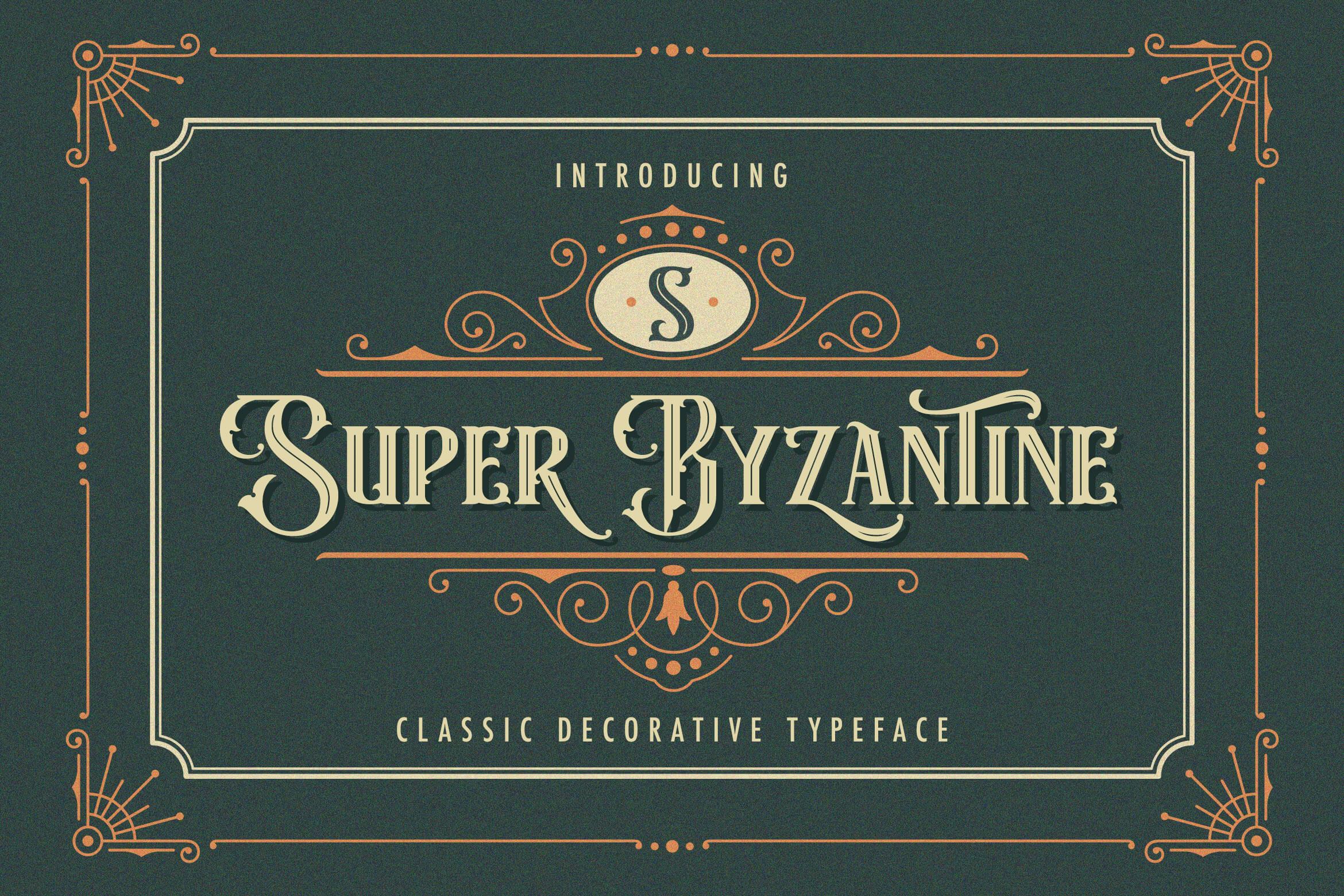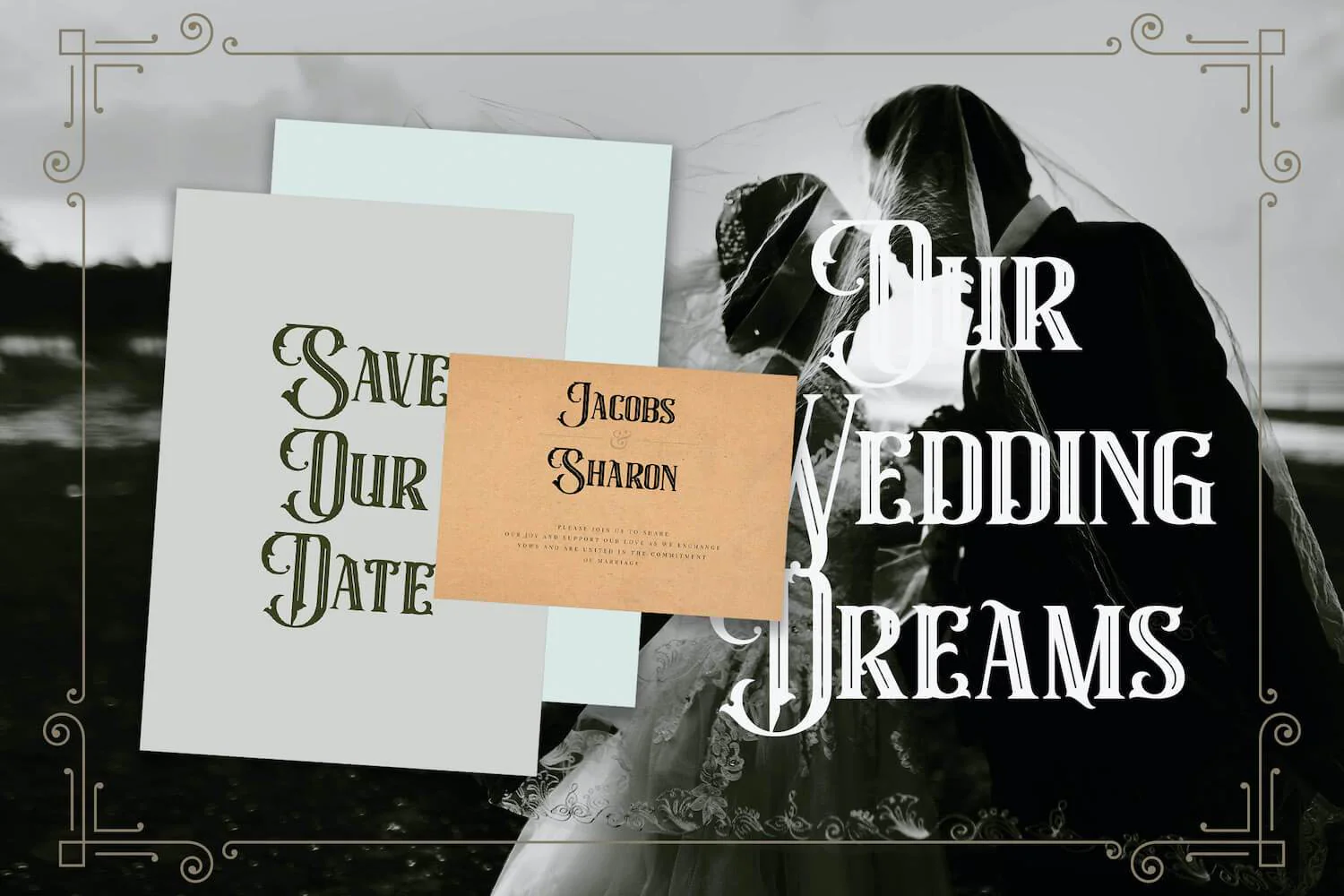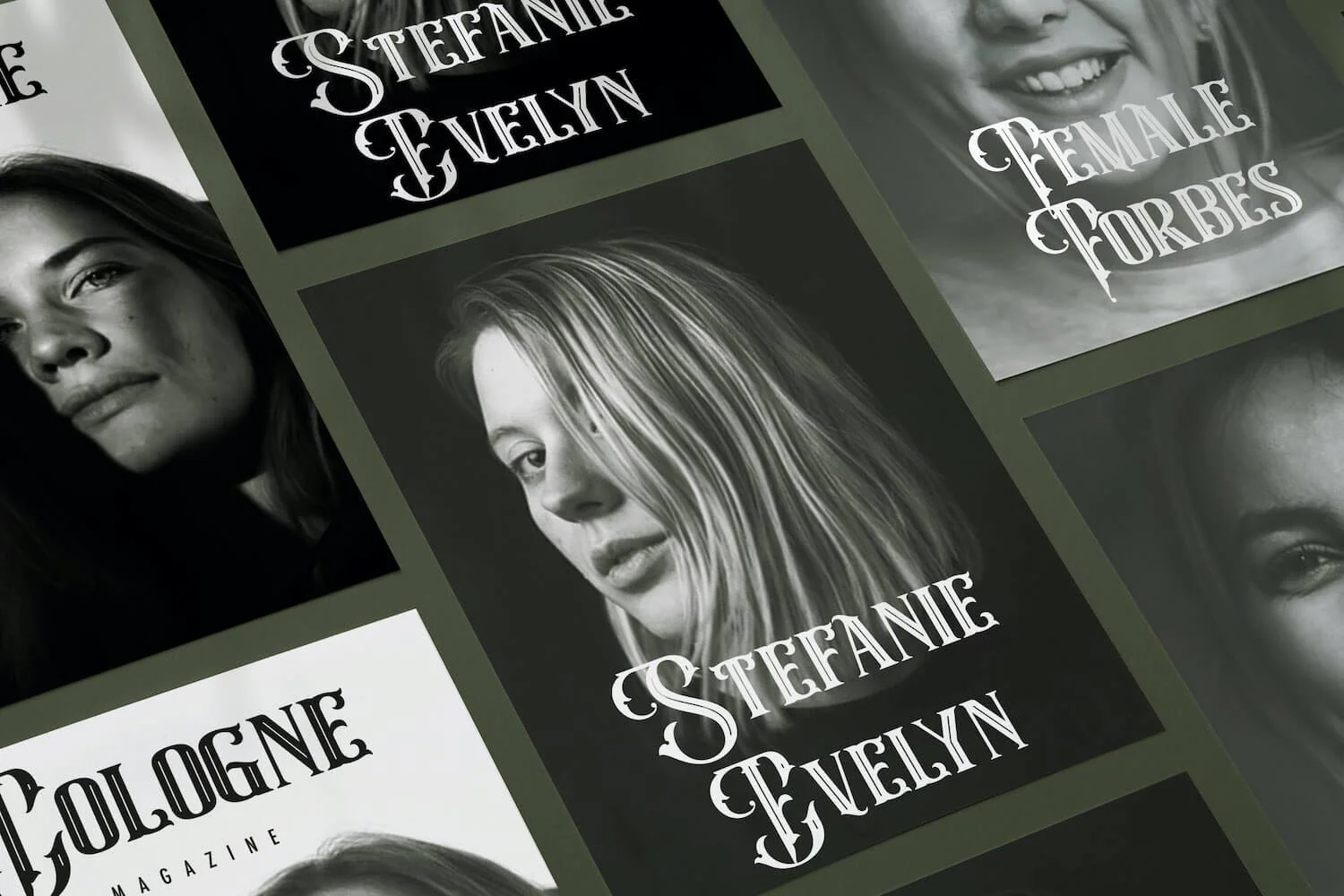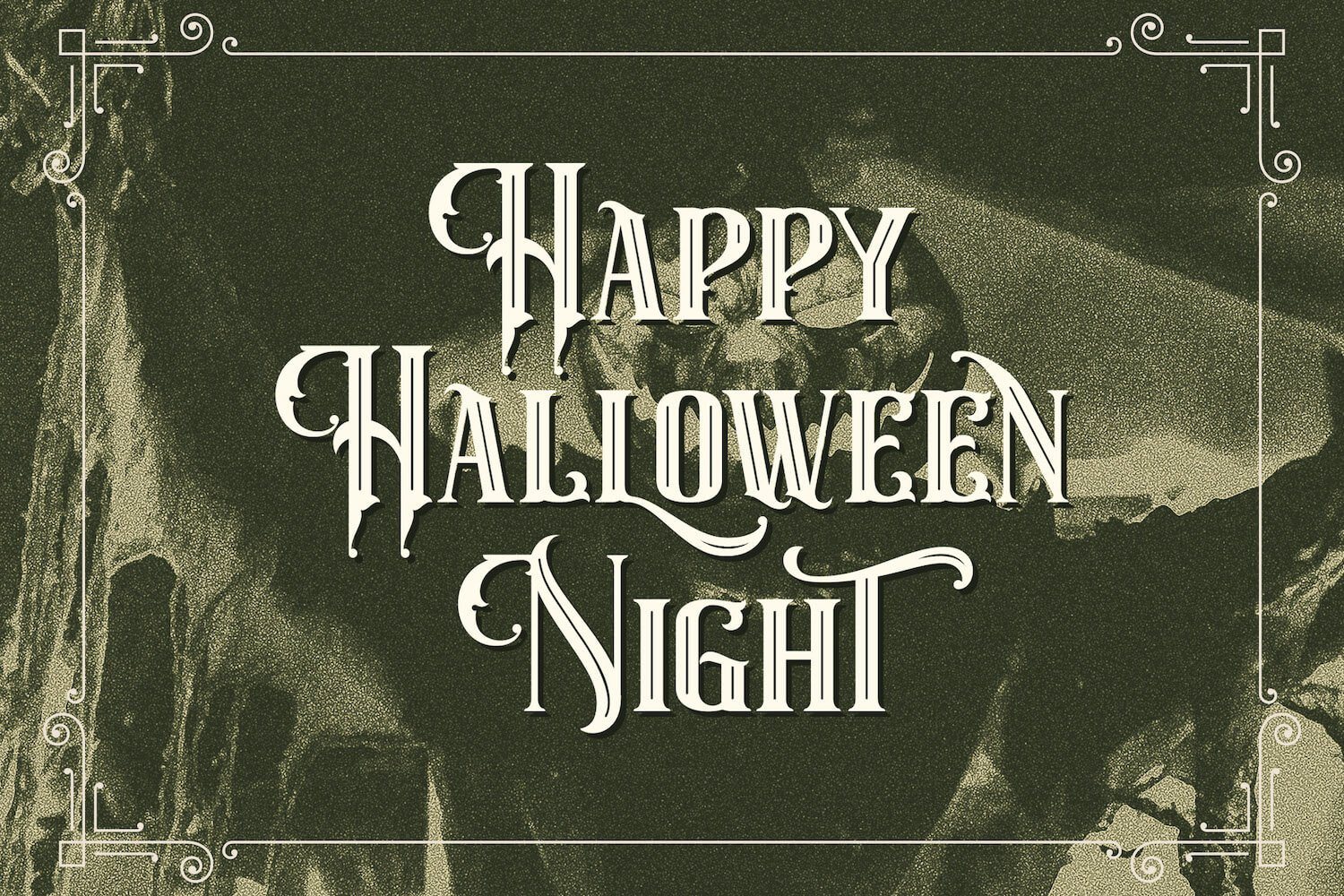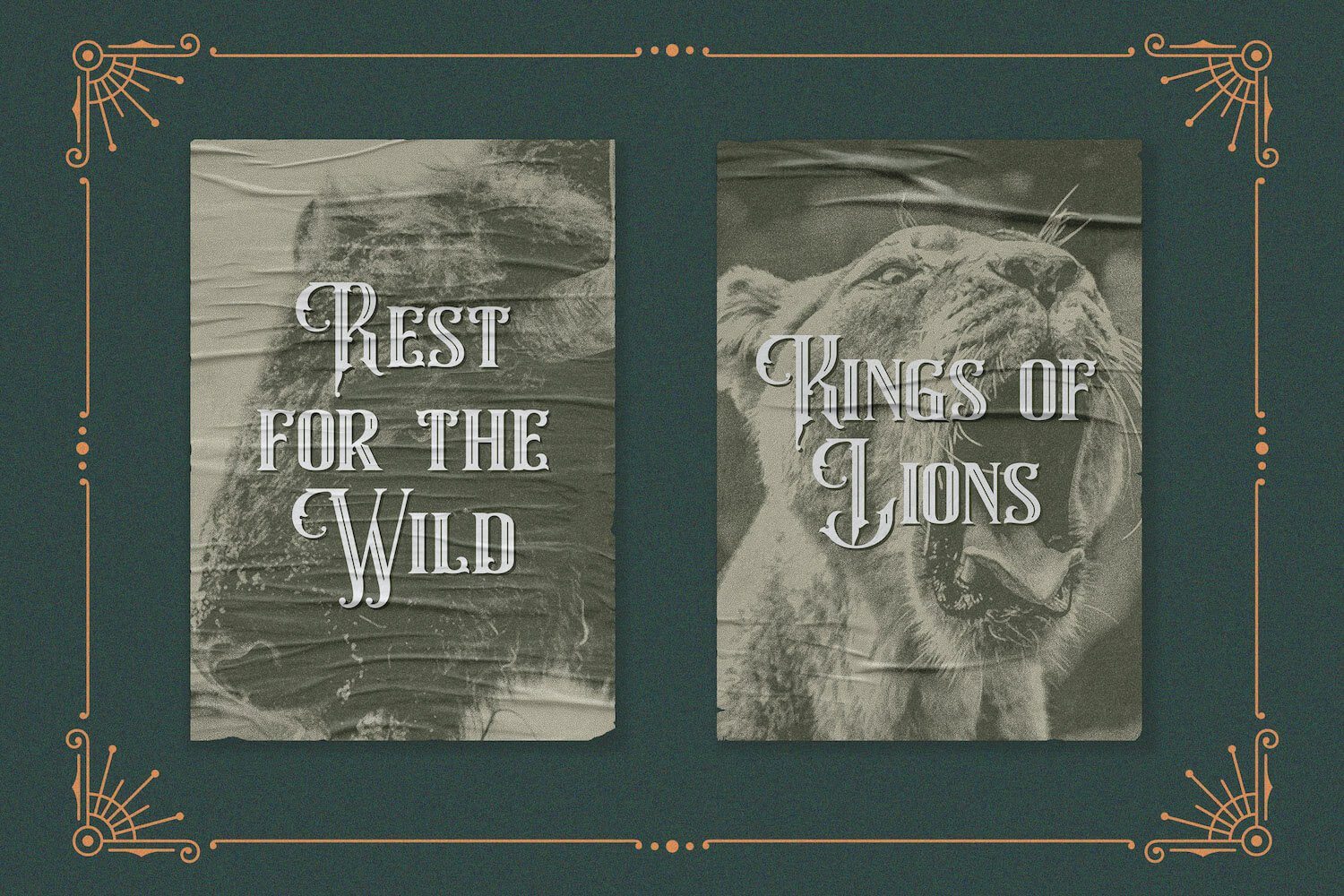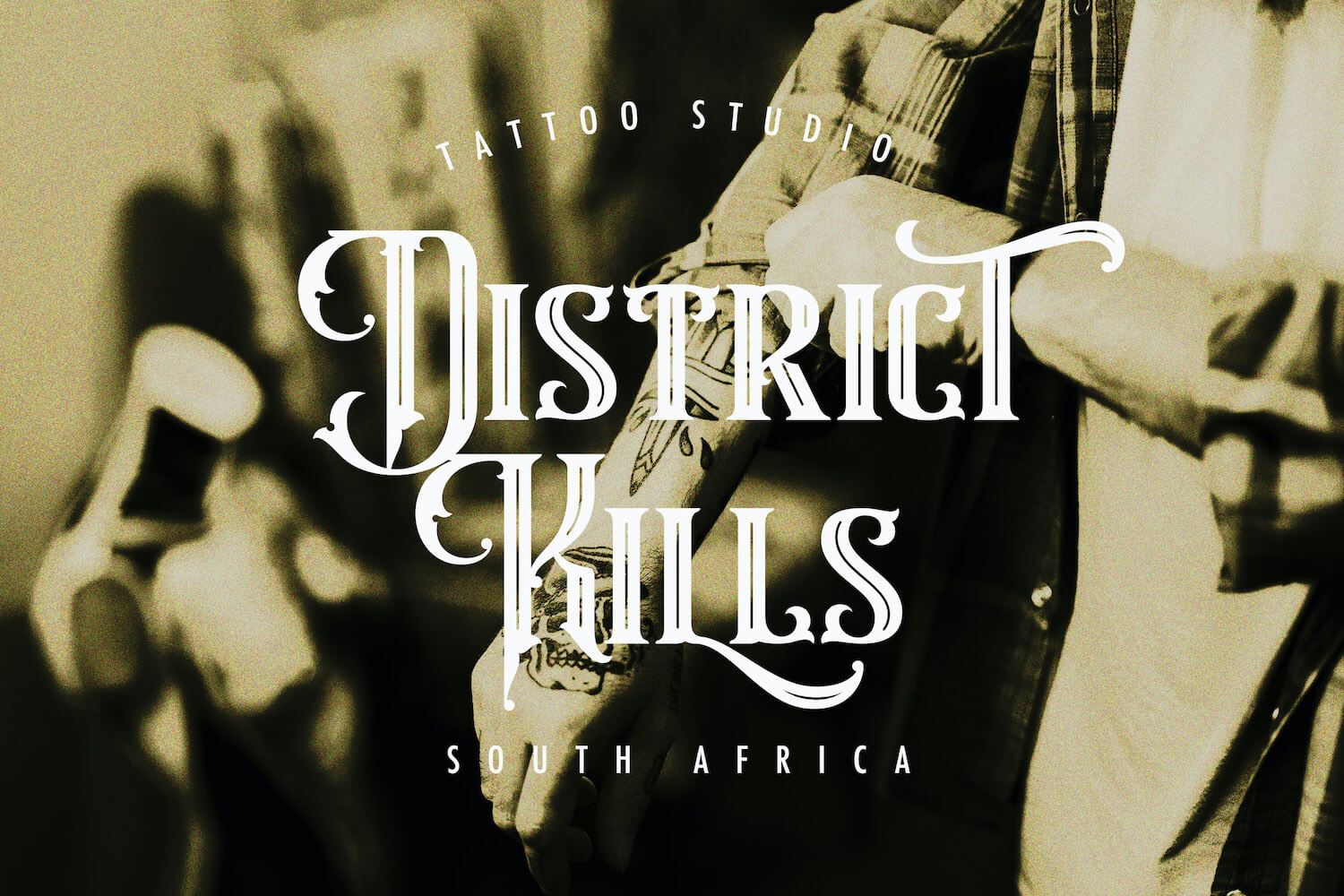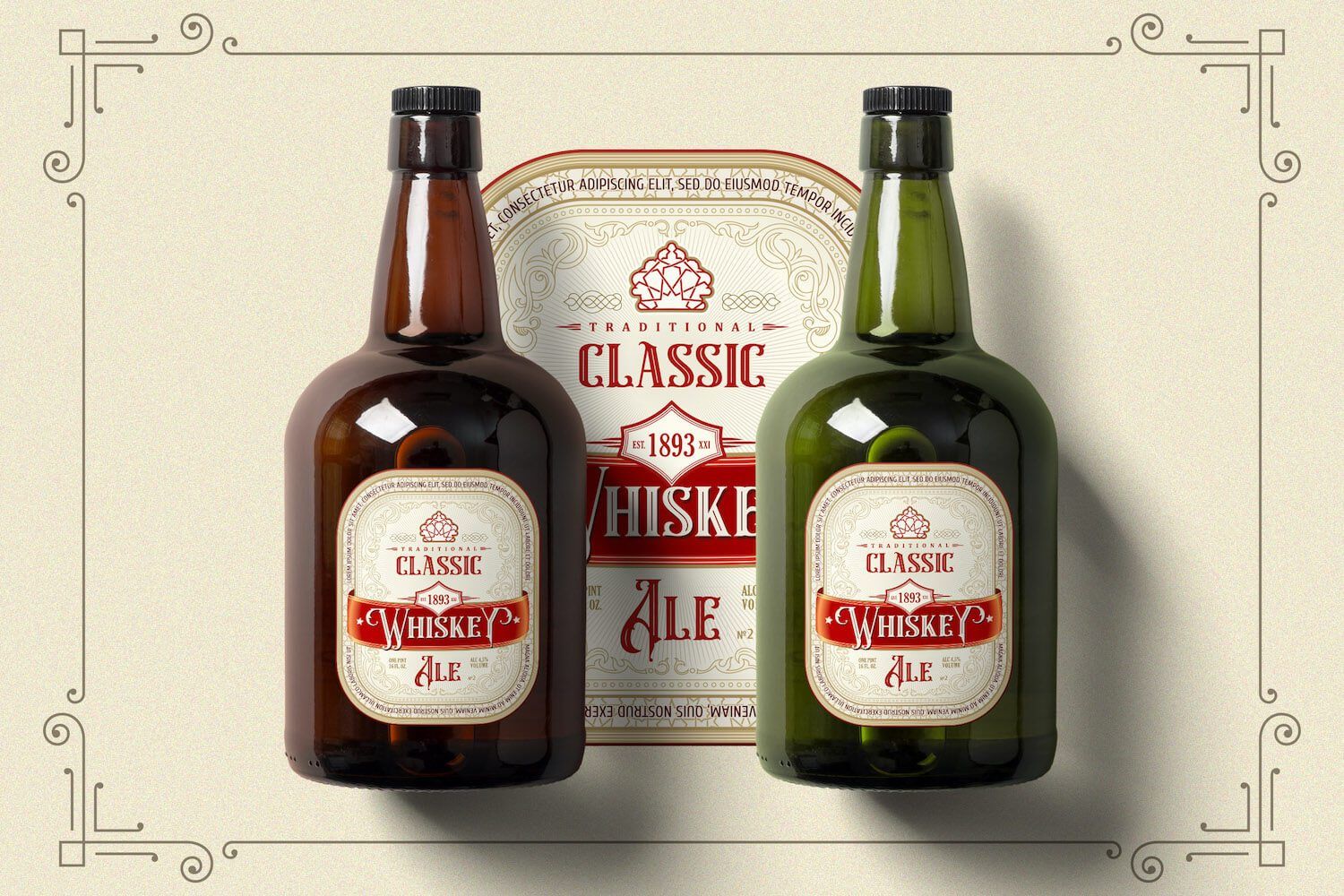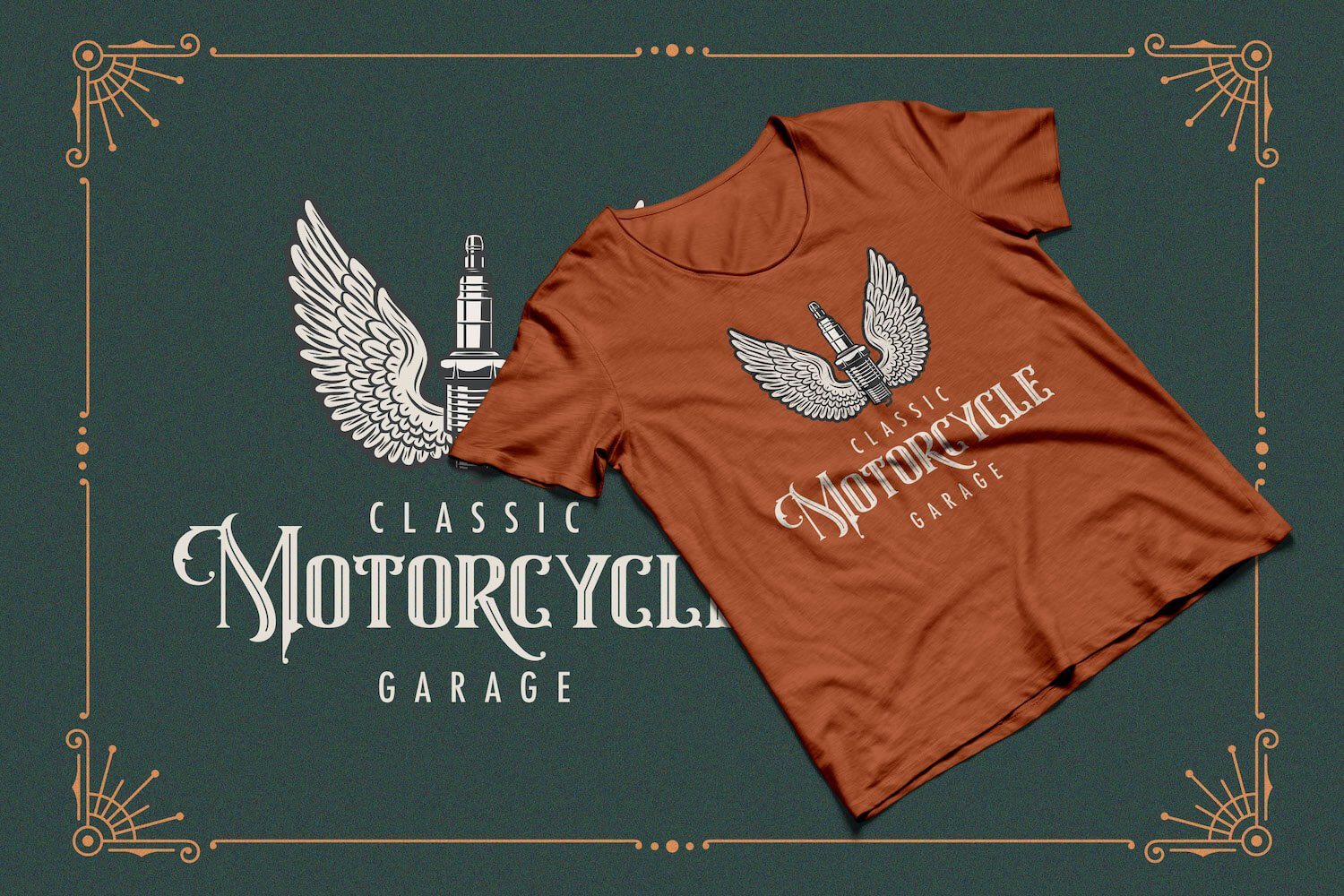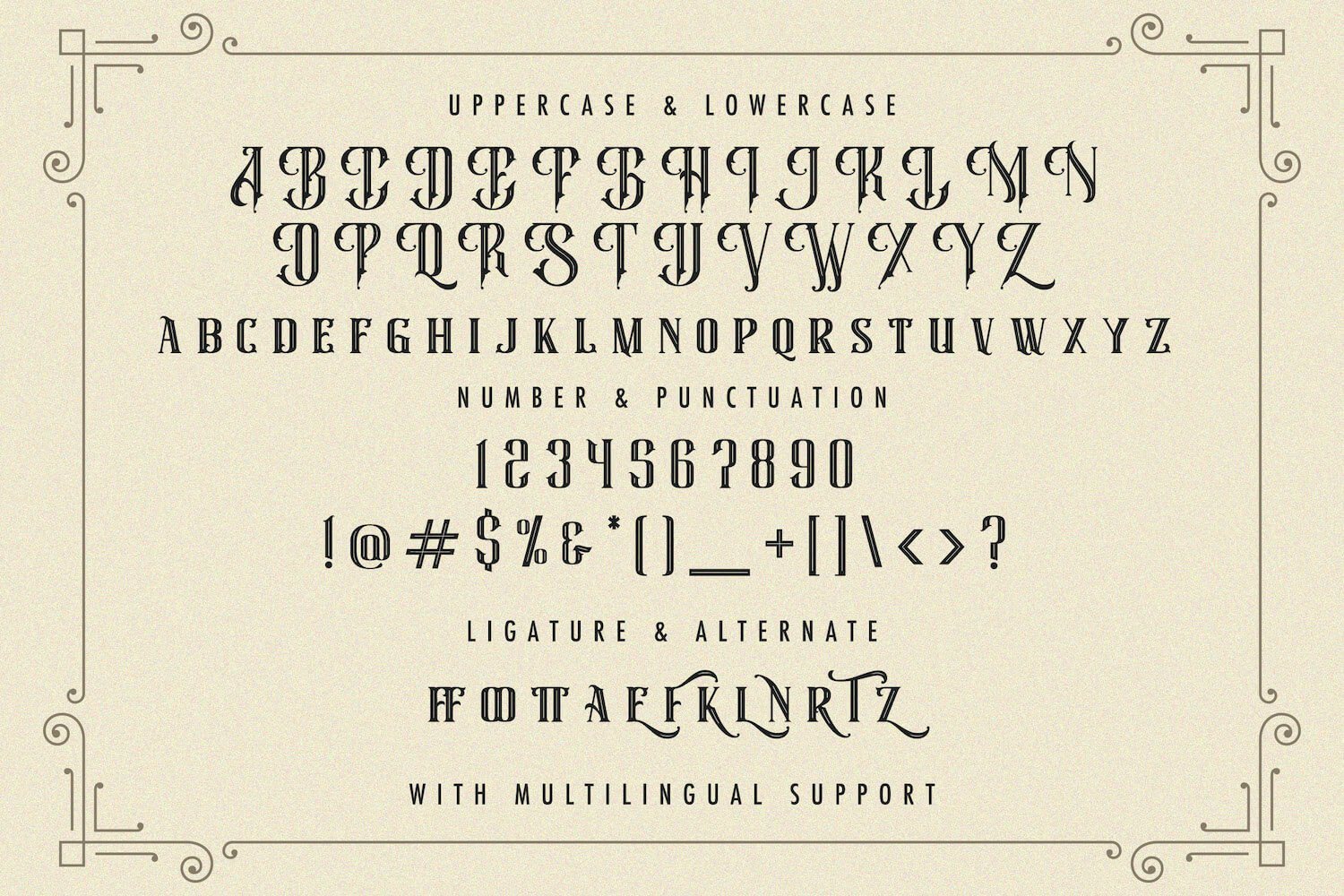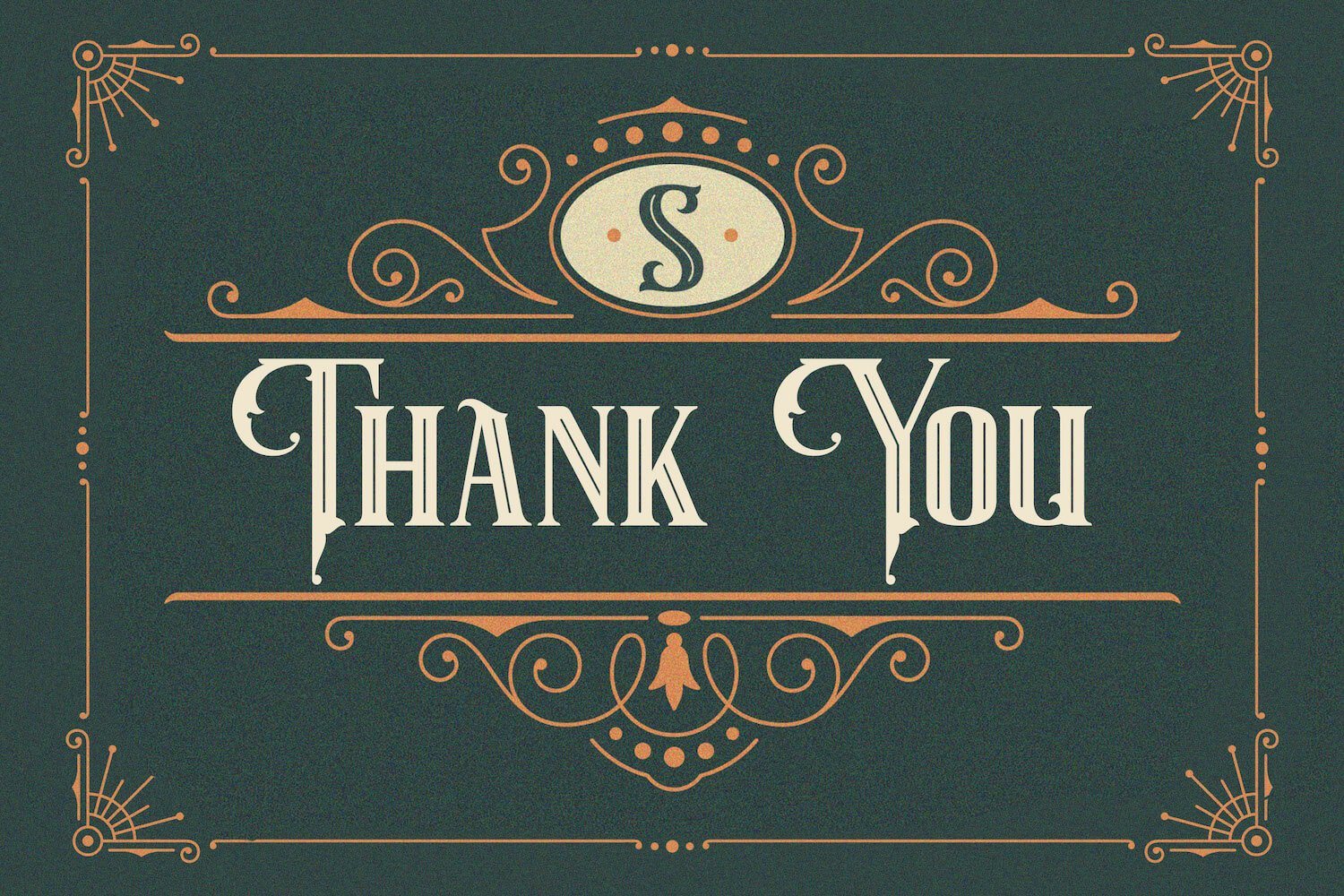
Super Byzantine - Decorative Font
Introducing Super Byzantine - Decorative Font
Super Byzantine is a unique, stylish and elegant decorative font. This typeface will look truly outstanding in a wide range of contexts.
Introducing Super Byzantine - Decorative Font
Super Byzantine is a unique, stylish and elegant decorative font. This typeface will look truly outstanding in a wide range of contexts.